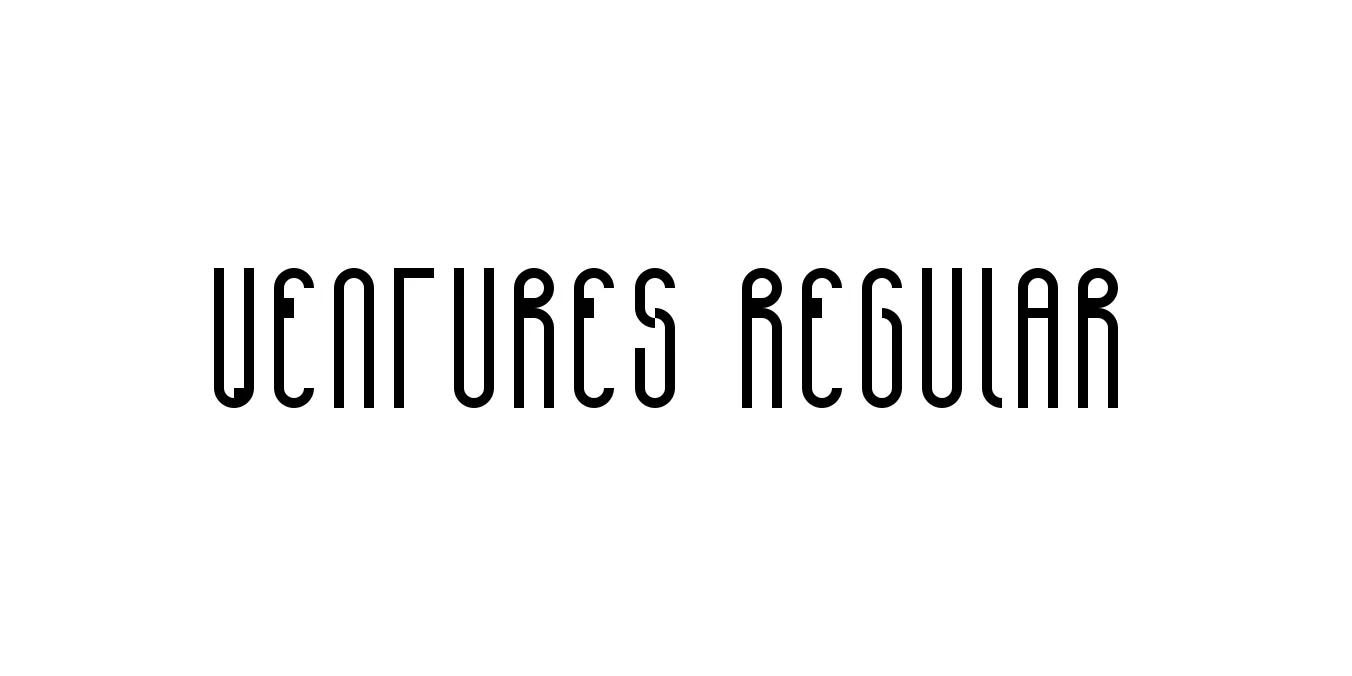
Ventures Regular
Ventures Regular is a distinguished vintage-inspired display typeface designed to capture the essence of mid-century Americana and retro signage. Its bold, clean strokes and balanced proportions provide a powerful visual presence, making it an ideal choice for projects that require a touch of nostalgic sophistication and timeless appeal.
This font family is widely recognized for its versatility in modern branding environments. Whether utilized for bold headlines or intricate logo design, Ventures Regular maintains high legibility and a unique character that stands out in both digital and print media, offering designers a robust tool for professional typographic compositions.
Ventures Regular Best Uses
Perfect for creating strong, memorable brand identities with a retro feel.
Adds a premium vintage touch to product labels, boxes, and merchandise.
Excellent for outdoor displays and shopfront headers due to its bold weight and high visibility.
Great for eye-catching quotes, promotional graphics, and hero images.